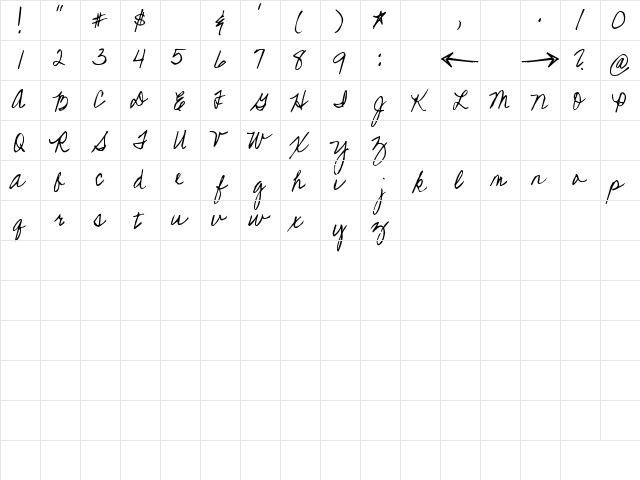
Pea XOXO from Karen Regular
Pea XOXO from Karen is a composed and adaptable typeface that performs quietly and consistently across a wide range of design contexts.